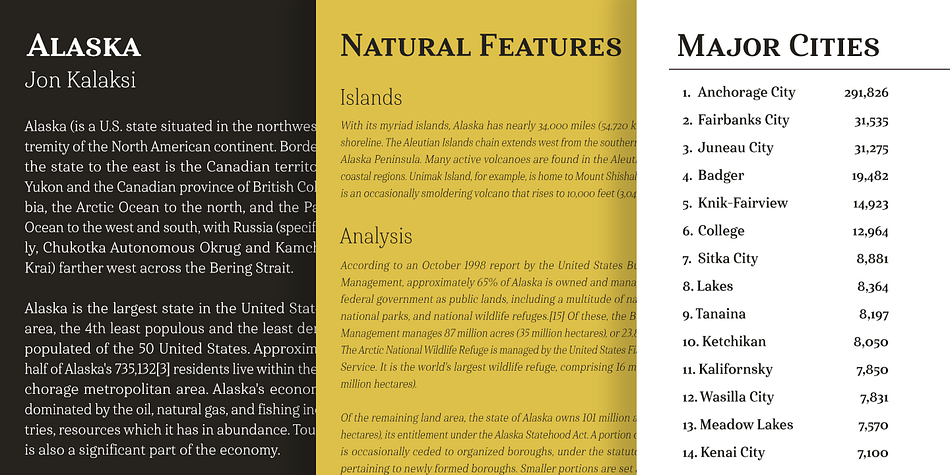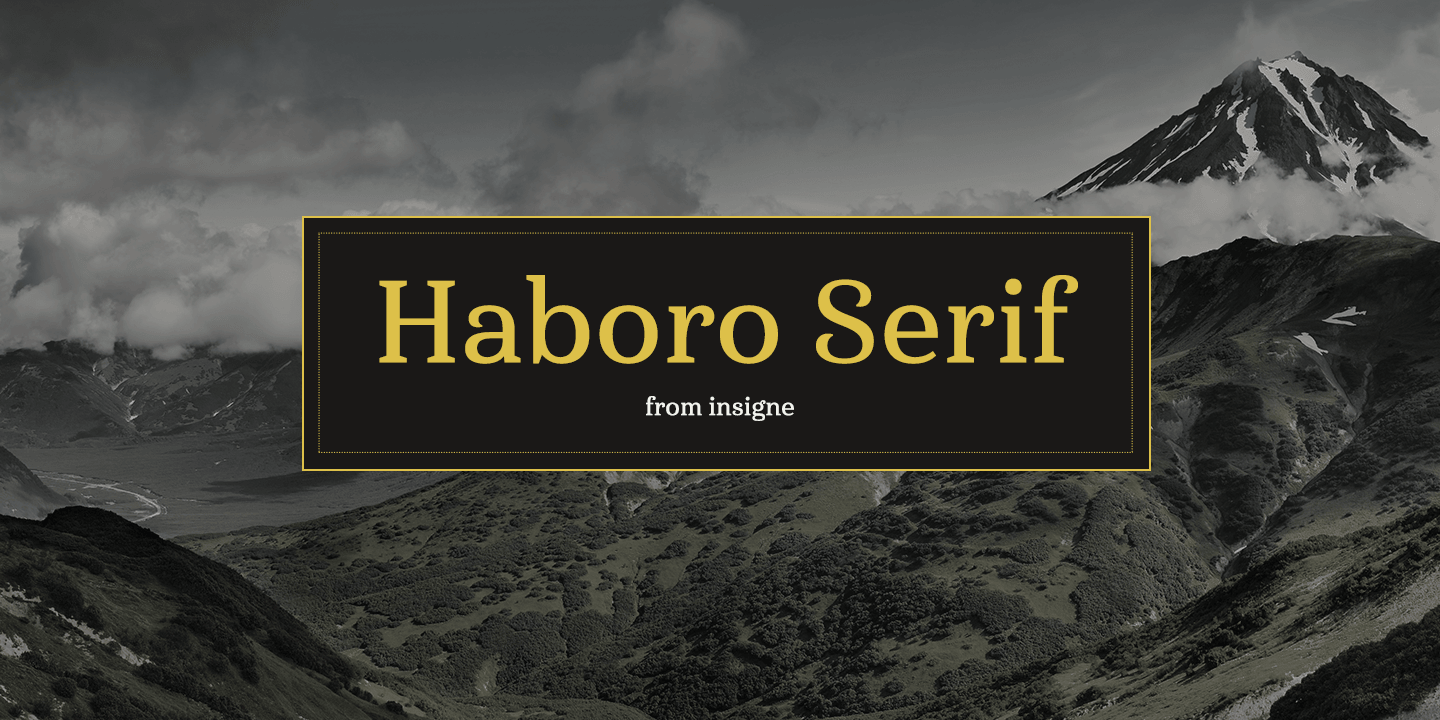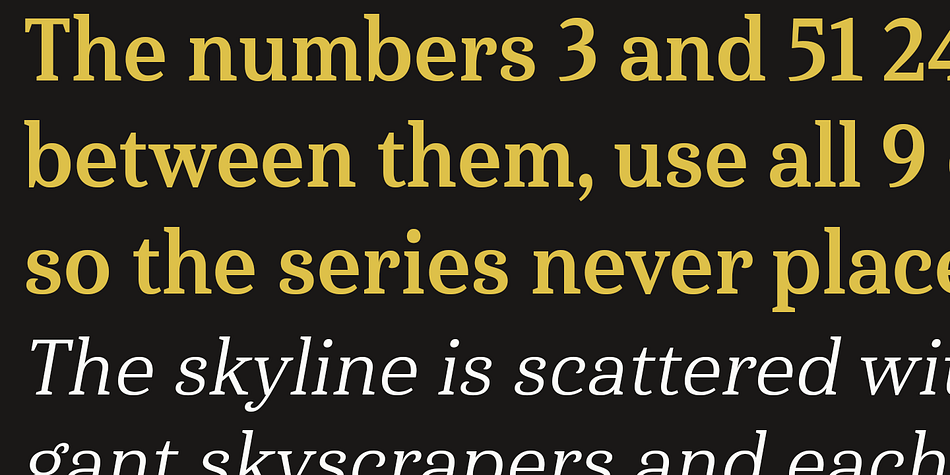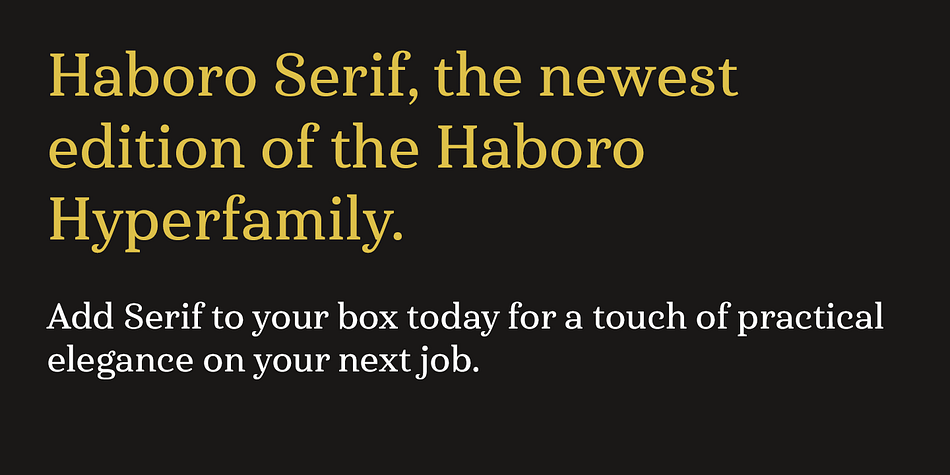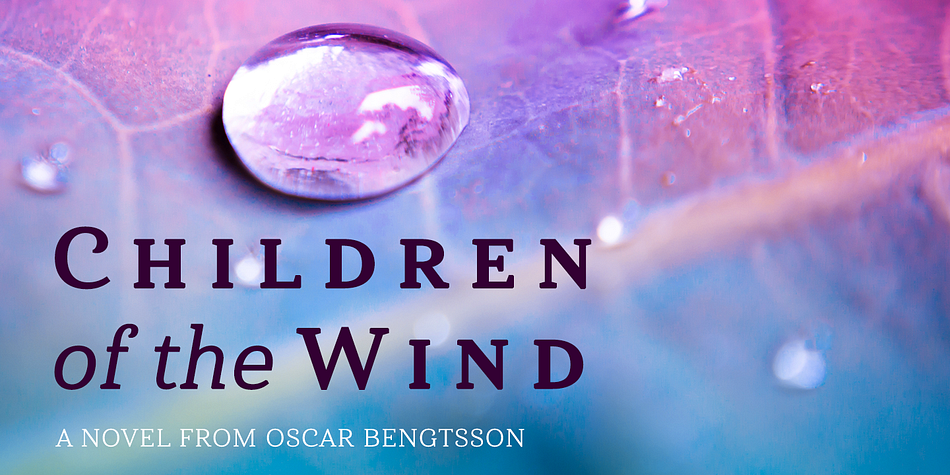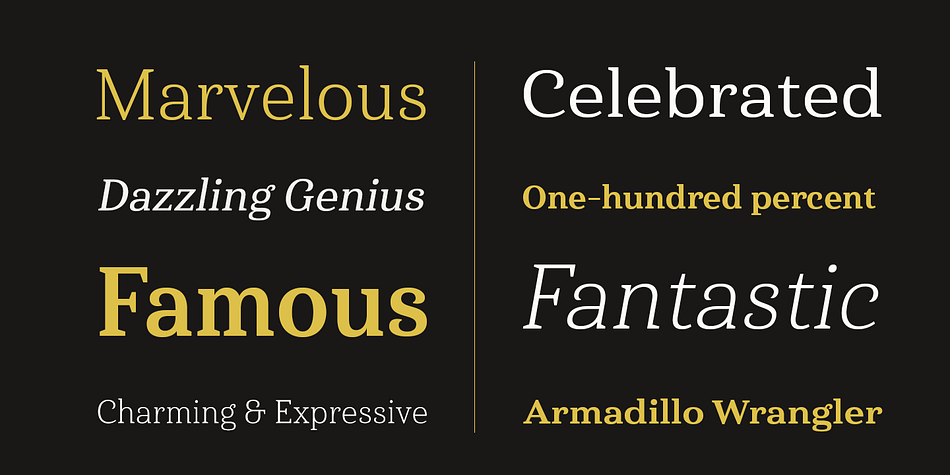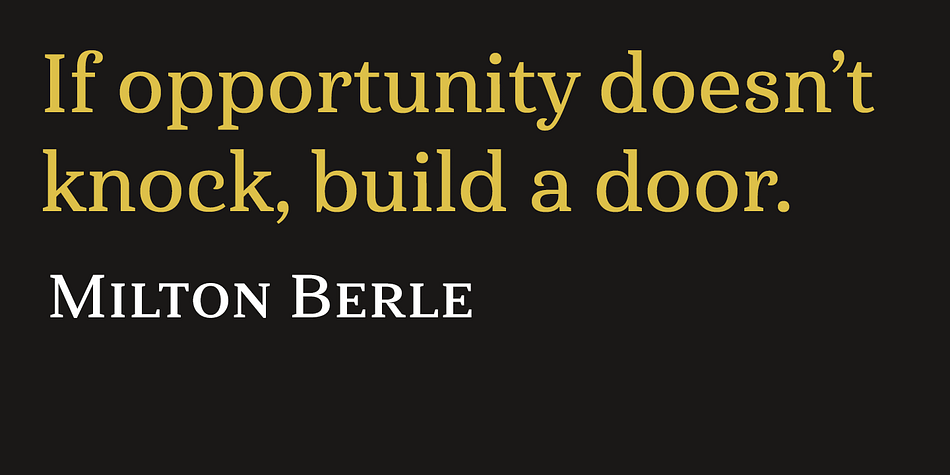
Haboro Serif is a serif font family. This typeface has forty-two styles and was published by Insigne Design.
The polls are in. Now here by customer request—Haboro Serif, the newest edition of the Haboro Hyperfamily. The Haboro fonts are an outstanding upstart success from the first part of 2016. Following the release of the popular Haboro, Haboro Sans and Haboro Slab have both been welcomed additions to the family, too.
Now, Haboro Serif continues to build on the base of these related designs. Serif maintains the unique, script-like terminals of the original. These terminals, along with the optimized stroke weight of this face, make it useful for text settings. Prefer standard serifs? These are also available as OpenType alternates within the font, giving you a wider variety of options without compromising its effectiveness in the same text settings..
Haboro Serif works with many other members of the Haboro family as well. Try the original Haboro for your headlines, and pair your Serif text with Haboro Sans for a balanced design that appeals to the reader. Add Serif to your box today, and try this all-around “Renaissance man” of a typeface for a touch of practical elegance on your next job.